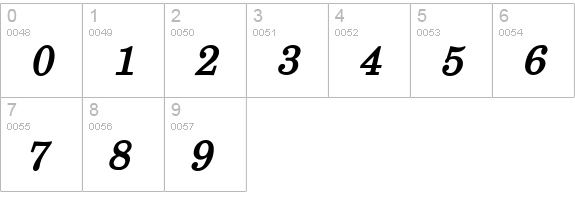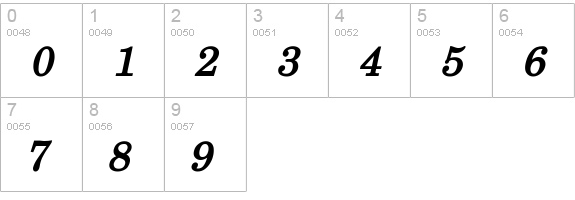
New Boston Bold Italic Font Details
New Boston Bold Italic is a strong, high-contrast, italic variant in the New typeface family \xE2\x80\x94 well suited to headlines, attention-grabbing titles, and strong calls-to-action.
Introducing New Boston Bold Italic font - a dynamic and versatile typeface that exudes confidence and modernity. The bold strokes and elegant italics of this font make it ideal for creating eye-catching headlines, striking logos, and impactful designs. The New Boston Bold Italic font is perfect for projects that require a strong and contemporary aesthetic. What sets this font apart is that it is available for free! Yes, you read that right - you can download the New Boston Bold Italic font for free at FontsMarket.com. This means that you can elevate your designs without breaking the bank. Whether you're working on branding, advertising, or editorial projects, the New Boston Bold Italic font will add a touch of sophistication and style to your work. Don't miss out on the opportunity to enhance your designs with the New Boston Bold Italic font. Download it for free today and let your creativity soar!